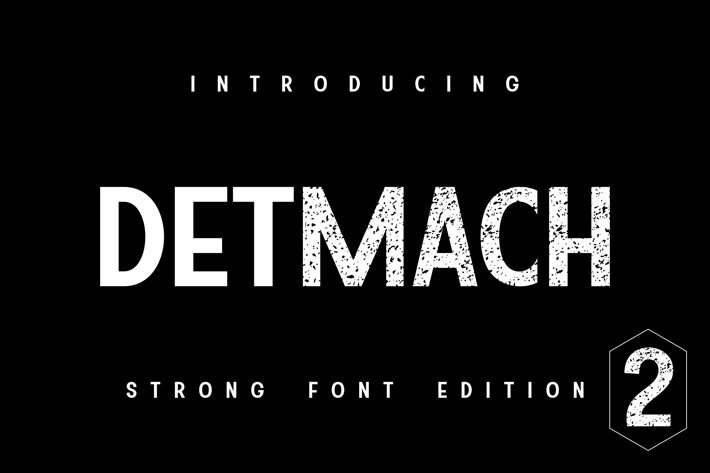
DETMACH Font Duo
Immerse yourself in the creative versatility of Detmach. A unique two-in-one typeface set, Detmach's sleek and stylish standard version proves to be a classic choice for any design project. Yet, it's the rustic variant of this duo which truly catches the eye and breathes life into the mundane. Bring an authentic, textured charm to any typography need with this power font, designed with the intention to fluidly transition from casual to formal, all while maintaining an air of elegance. Experience the duality and practicality afforded by Detmach, the font that epitomizes 'double duty'.